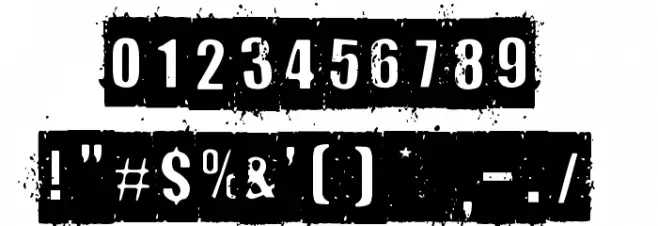
Distort You A Lesson Font
Distort You A Lesson Description
This font features a bold, distressed style with a stencil-like appearance. Each character is enclosed in a rectangular block, giving it a rugged, industrial feel. The letters and numbers are uniformly capitalized, with a consistent height and width, creating a strong visual impact. The distressed texture adds a grunge effect, making it ideal for designs that require a raw, edgy look. The font's unique style makes it stand out, perfect for projects that need a bold statement. The special characters maintain the same distressed and blocky aesthetic, ensuring cohesion across all elements.
A bold, distressed stencil font with an industrial, grunge aesthetic from Distorted Eroded fonts.
- Proposed Projects: Ideal for posters, album covers, urban-themed designs, and branding that requires a bold, edgy look.
- Overall Style: Grunge, Industrial